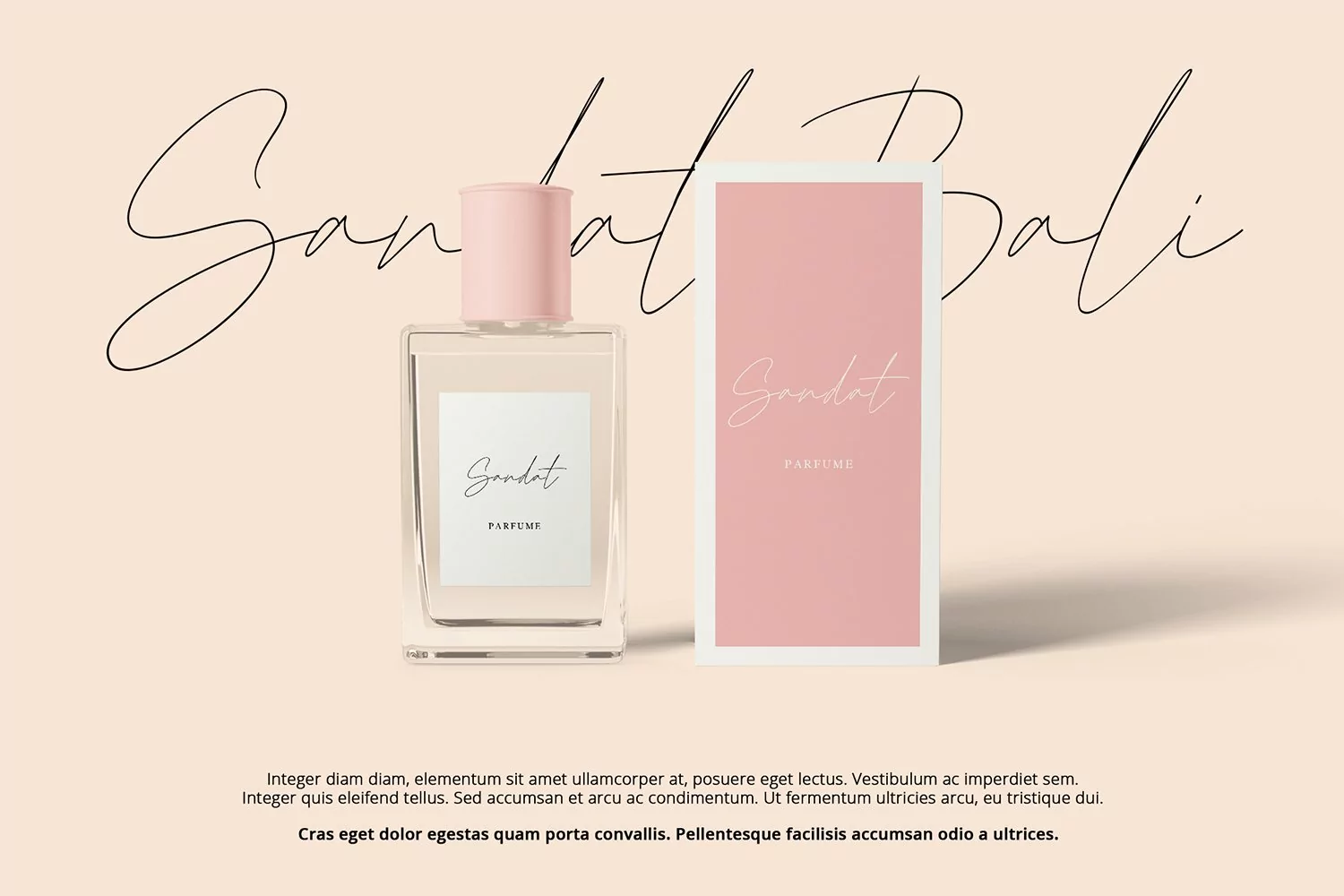
Arabilla Signature
Welcoming Arabilla, a Natural Signature Font for this blooming season
Arabilla step out with natural gesture and supple line make it looks more elegant in cheerful beauty
Arabilla is stunning for wedding designs, engagement invitations, flirty business cards, attractive logos, photo illustrating, social media posts, advertisements, product packaging, product designs, label, photography, watermark, invitation, stationery, and any projects that need handwriting taste made
Arabilla will easy to use complete with numbers and punctuations also more attractive and gentle with more ligatures and alternates. It also fit to combine with Sans, Serif or another straight gentle font to serve tons beauty impression